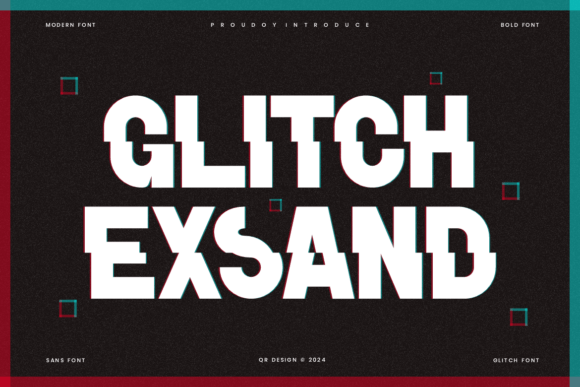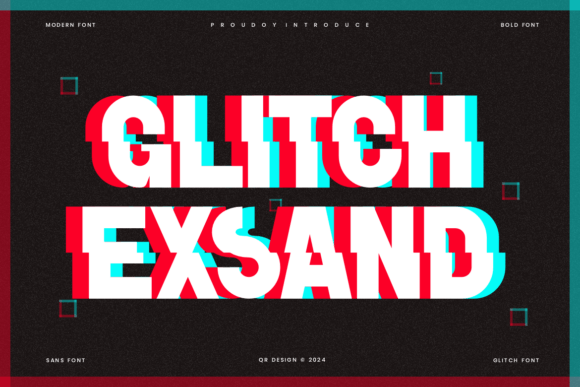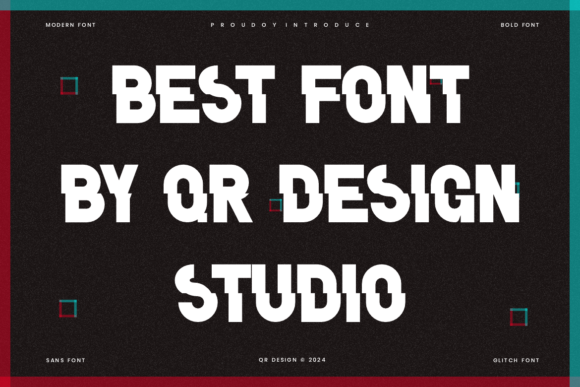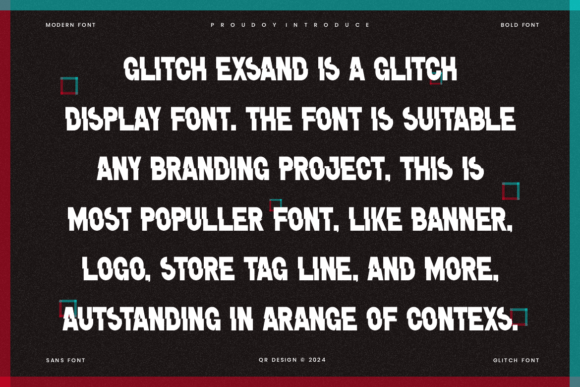
Glitch Exsand Font: A Bold Futuristic Font for Logo Design
About the Glitch Exsand Font
The Glitch Exsand Font offers a perfect balance of form and function for your design needs. Glitch Exsand – Futuristic Font is a bold and authentic display font.
The font is suitable for any branding project, such as a logo, sport, and many more.
Outstanding in a wide range of contexts.
Glitch Exsand excels as a display font for headlines, posters, and short impactful statements in branding materials. Its strong, futuristic aesthetic makes it ideal for technology companies, gaming brands, or projects emphasizing innovation and speed. Avoid using it for body text or long-form content; its boldness can be overwhelming in extended use.
Pairing Glitch Exsand with a clean sans-serif like Open Sans for body copy provides a strong contrast and balanced readability. For a more playful feel, consider a rounded geometric sans-serif like Futura. A sophisticated serif like Garamond can add a touch of classic elegance when used for supporting text, contrasting Glitch Exsand’s modern edge.
The overall personality of Glitch Exsand is bold, assertive, and undeniably modern. Its high contrast and geometric forms convey a sense of power and futuristic energy.
Glitch Exsand Font Usage Examples
Glitch Exsand Font Example